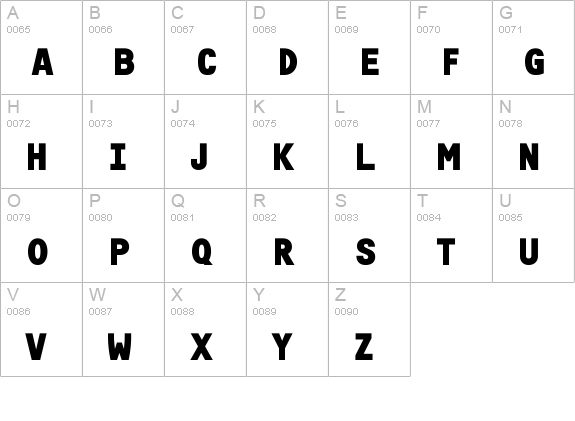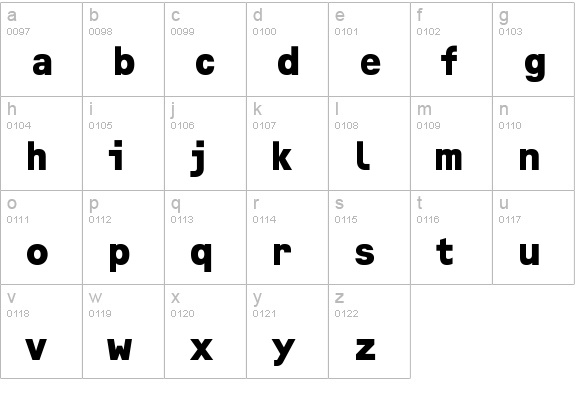
OCRF-Bold Font Details
OCRF-Bold is a strong, high-contrast variant in the OCRF typeface family \xE2\x80\x94 well suited to headlines, attention-grabbing titles, and strong calls-to-action.
OCRF-Bold is a bold and impactful font that is perfect for making a statement in your designs. With its strong and sturdy appearance, this font exudes confidence and authority. The clean and clear letterforms make it highly legible, ensuring that your message will be easily understood. Whether you are creating posters, headlines, or branding materials, OCRF-Bold will grab attention and leave a lasting impression. The best part? OCRF-Bold is completely free to download at FontsMarket.com. This means you can elevate your designs without any cost, making it a versatile and budget-friendly option for all your creative projects. Don't miss out on this fantastic opportunity to enhance your typography with OCRF-Bold!